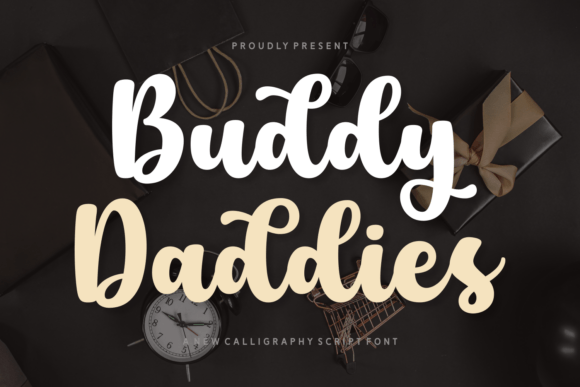
Buddy Up with the Perfect Font
Have you ever stared at a blank page, trying to come up with the perfect design concept, only to be hit with a burst of creativity when you finally discover the right font? That’s exactly what happened to us when we found the Buddy Daddies Font. Its bold and modern calligraphy script is like a breath of fresh air, adding a playful and friendly touch to any design project.
This versatile font is perfect for designers who want to add a personal touch to their creations. Whether you’re working on a logo, social media graphic, or invitation, Buddy Daddies Font is sure to bring warmth and personality to your work. With its smooth curves and thick strokes, it’s no wonder this font has become a favorite among designers looking for a bold and approachable style.
Buddy Daddies Font Key Features
- Font Family: The font family is not specified, but it is known to be a custom font designed for the anime series “Buddy Daddies”.
- Unique Characteristics: The font features a unique blend of bold and playful lines, making it stand out in various design contexts.
Buddy Daddies Font Review
As a designer, I was excited to dive into the Buddy Daddies font, inspired by the popular anime series. Here’s my honest review.
- Unique aesthetic: The font’s design is a great representation of the anime series’ quirky and playful vibe.
- High contrast: The bold lines and curves make the font stand out and are easy to read.
- Fun variations: The font comes with multiple styles and weights, offering a lot of flexibility for designers.
- Limited character set: The font’s character set is relatively small, which might be a limitation for designers who need to use it for longer text.
- Not suitable for body text: While the font is great for headlines and titles, it might not be the best choice for body text due to its high contrast and quirky design.
The Buddy Daddies font is a fun and unique addition to any designer’s toolkit. While it has some limitations, it’s perfect for designers who want to add a touch of personality to their projects. I’d recommend using it for headlines, titles, and short text passages where its quirky design can shine.
Tips for Getting the Most Out of Buddy Daddies Font
Use the Buddy Daddies font to create a playful and modern look in your designs. Experiment with different font sizes and styles to add visual interest. This font is particularly effective for titles, headings, and body text in creative and informative content.
The Buddy Daddies font is ideal for use in creative projects, such as:
Alex Brush is a beautiful, elegant script font that is perfect for titles, headings, and creative projects. It has a more refined and polished look compared to Buddy Daddies Font, making it a better choice for formal or high-end designs. Alex Brush is also suitable for designs that require a touch of sophistication and elegance, making it a great alternative to Buddy Daddies Font.